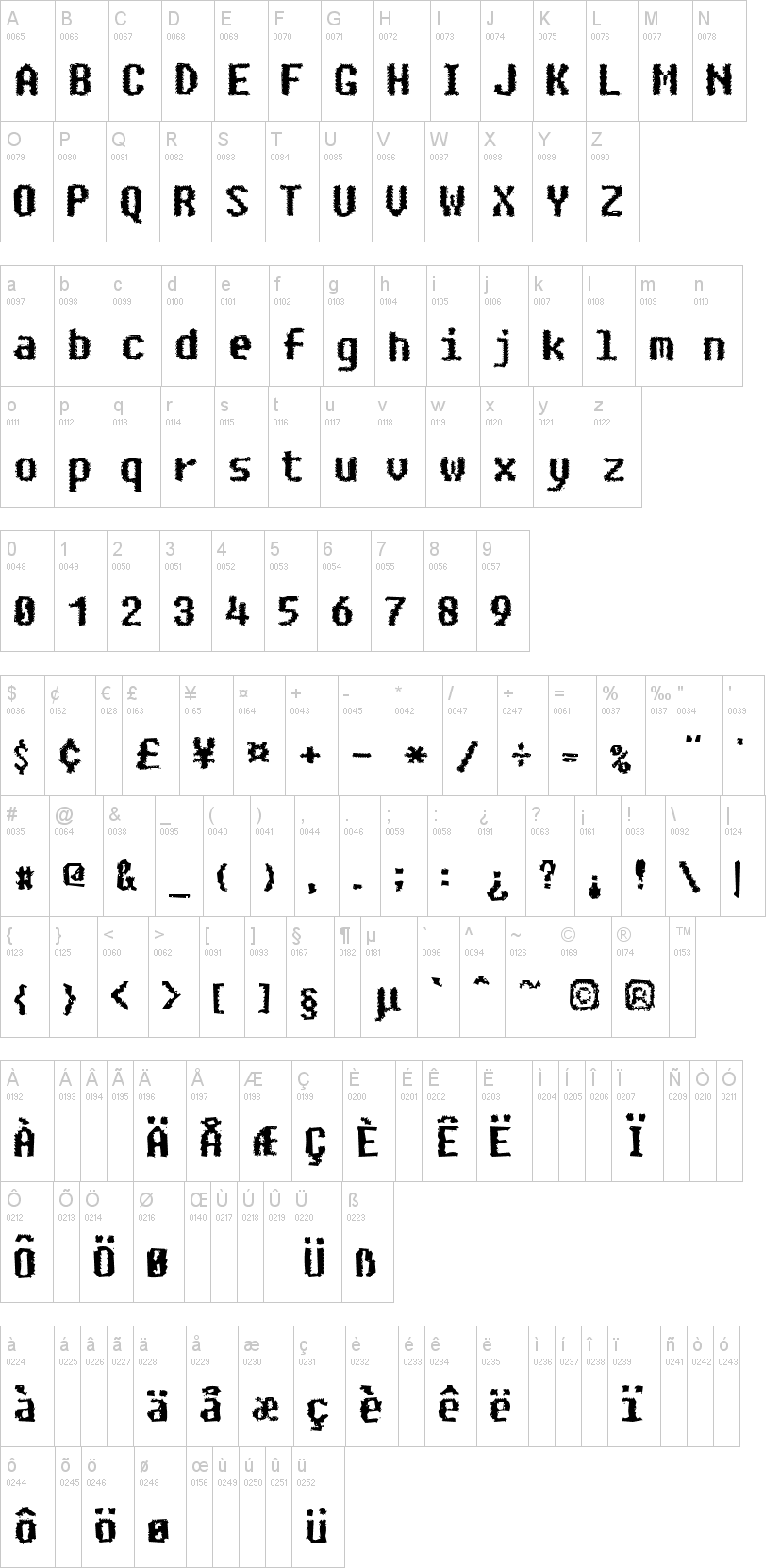
Шрифт Paranoid Android
Paranoid Android is a jagged, gritty, schismatic terminal-style font which is contains most of the normal characters, as well as most punctuation and some European diacritics.